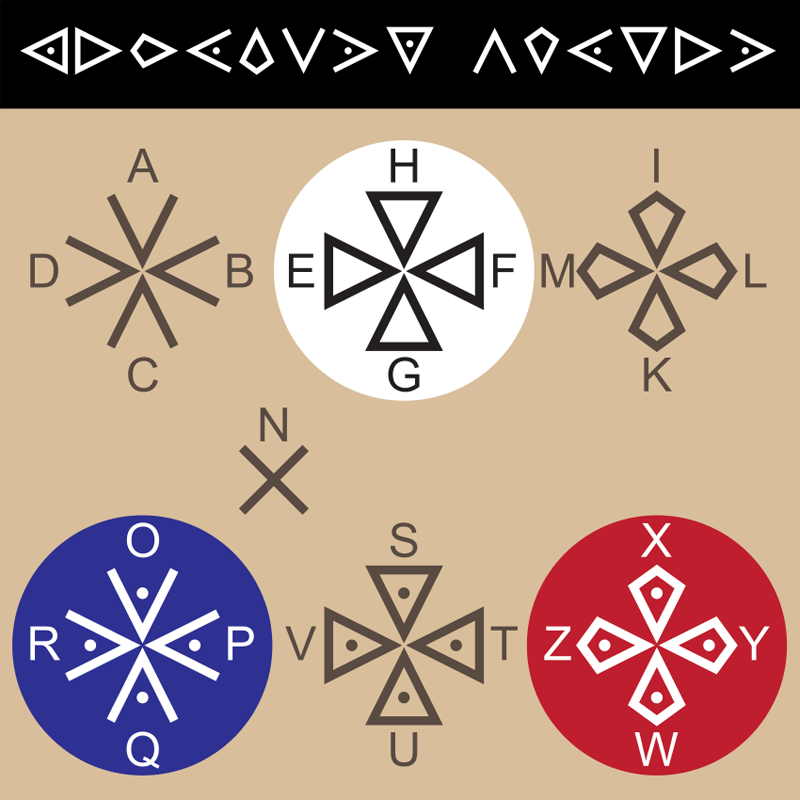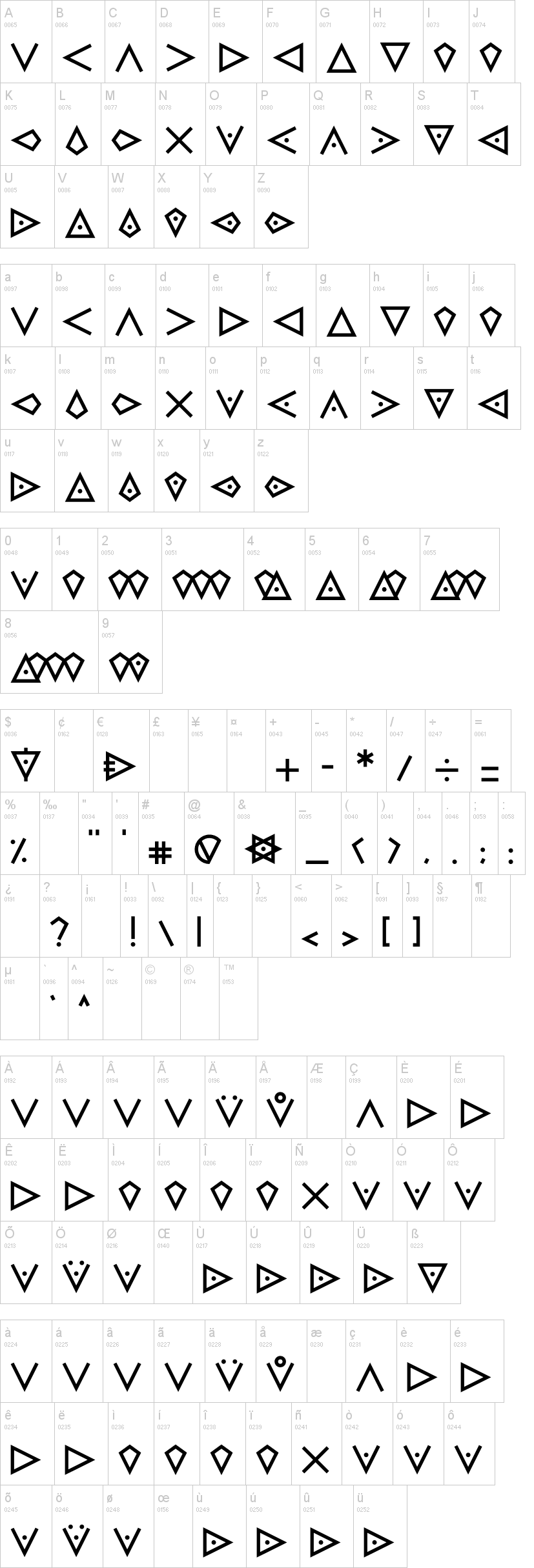
Note of the authorThe Templars Cipher is a simple substitution cipher that replaces letters with symbols that are fragments of the Maltese Cross, icon of Order of the Temple, and is claimed to have been used by the Knights Templar. As early as the 12th century.
I noticed it didn't seem to exist as a font yet so I put one together along with some extra symbols that simply fit the look even if those arent part of the cipher.
Note: Back when this cipher was created, the letter "J" had not been established yet, and will use the same symbol as "I"